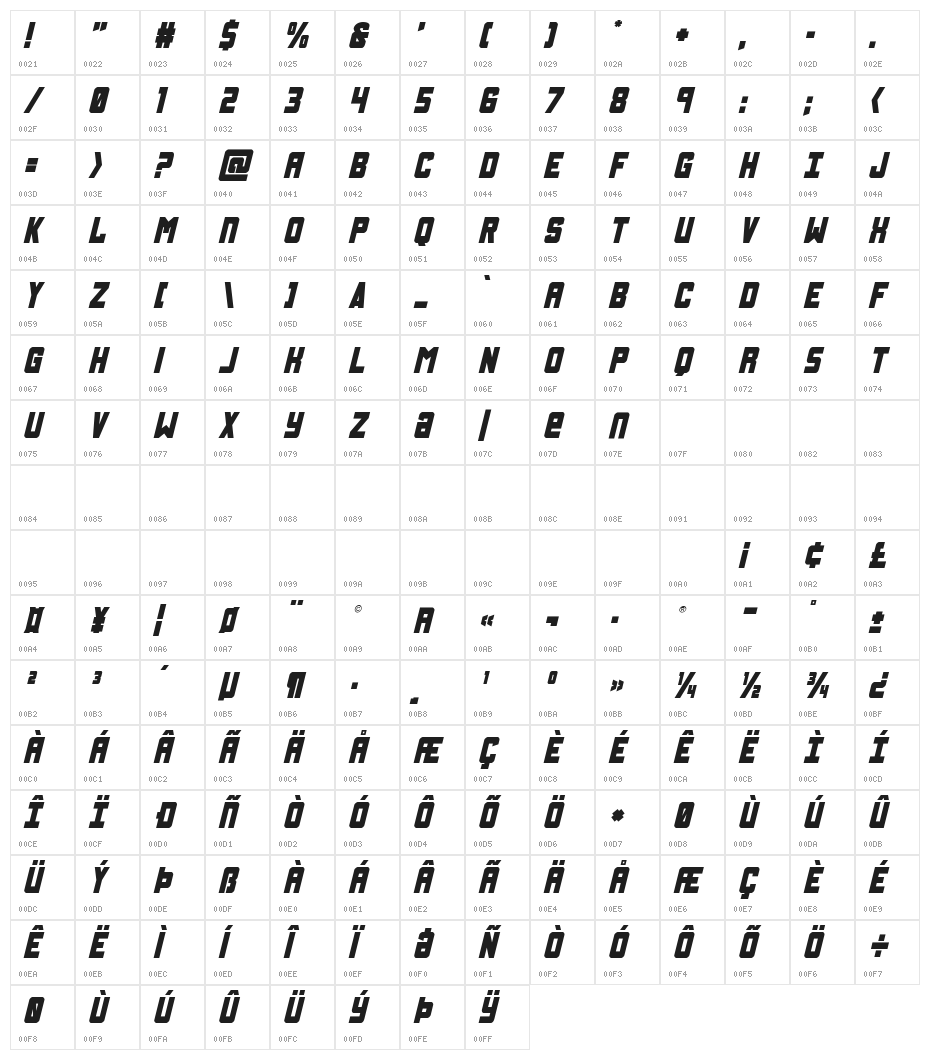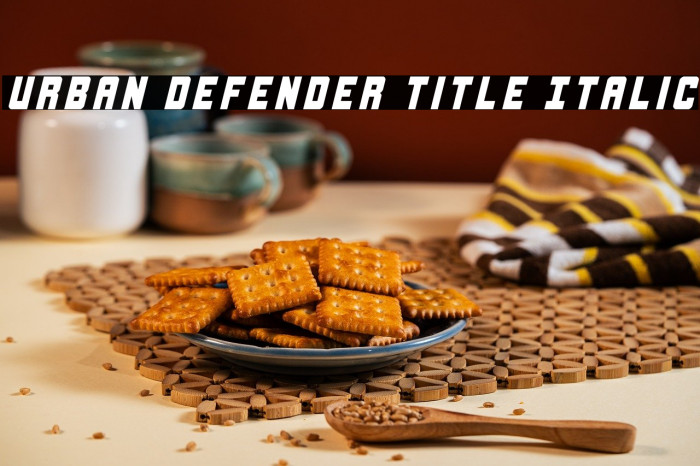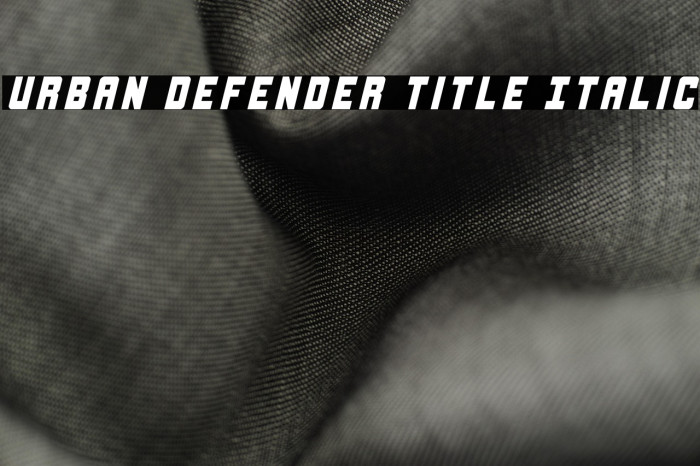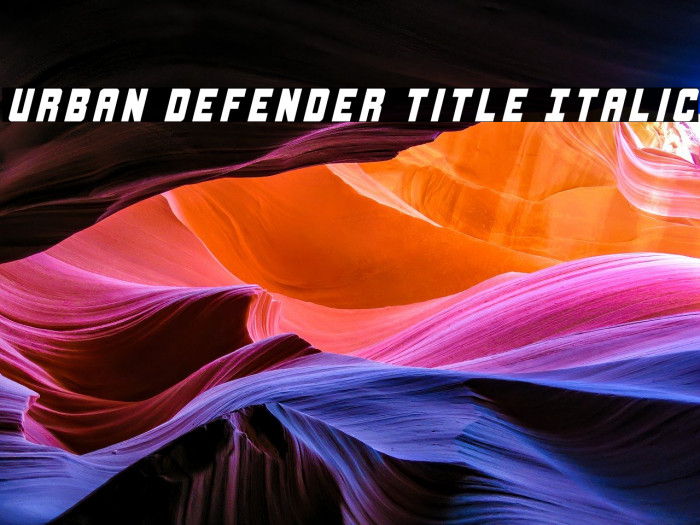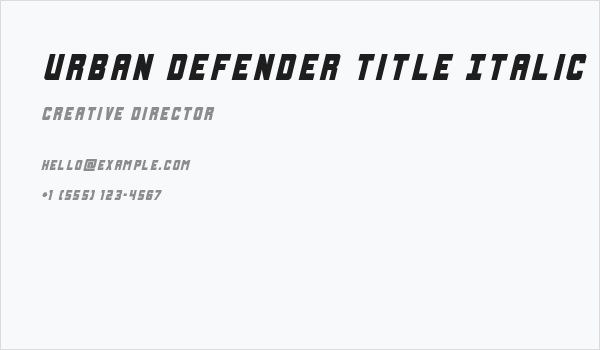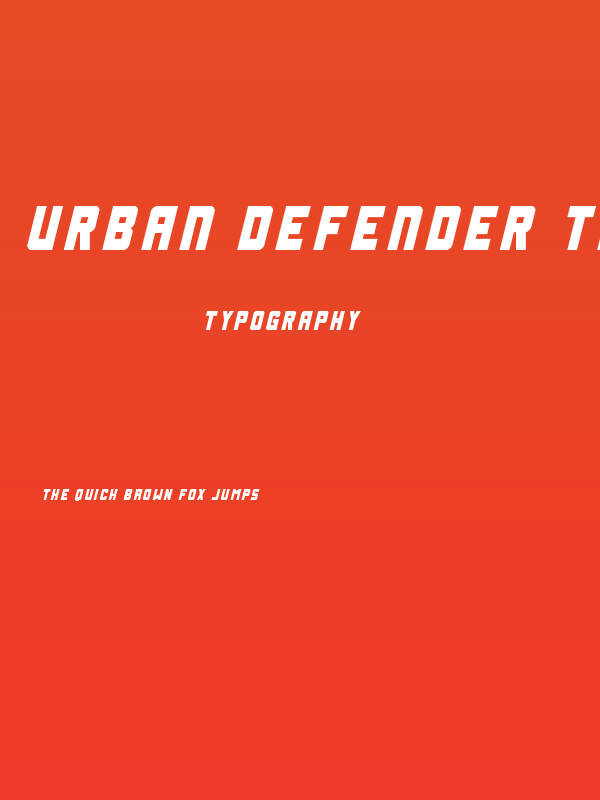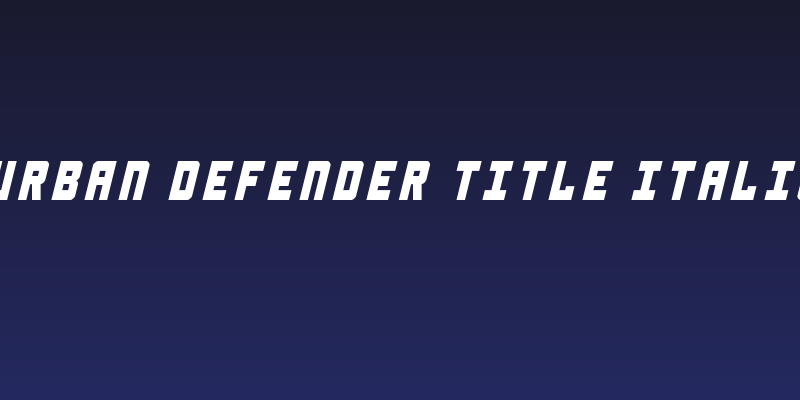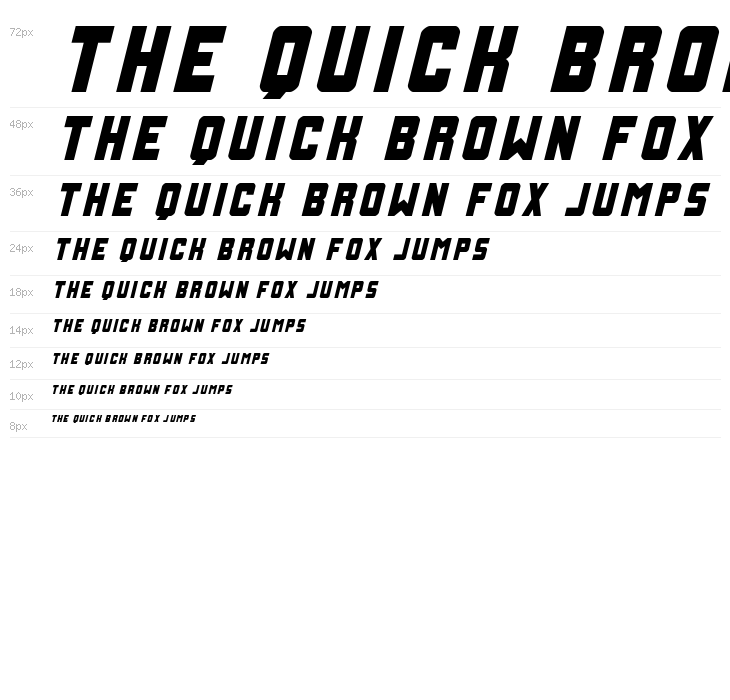
Urban Defender Title Italic Font
Urban Defender Title Italic Description
This font features a bold, italicized style with a modern and dynamic appearance. The characters are slightly slanted, giving a sense of motion and energy. The strokes are thick and consistent, providing a strong visual impact. The uppercase and lowercase letters maintain a uniform height, contributing to a cohesive look. The numbers and special characters follow the same design principles, ensuring versatility across different uses. The overall design is clean and sharp, making it suitable for attention-grabbing headlines or titles.
| Proposed Projects | Ideal for sports branding, action movie posters, or dynamic website headers. |